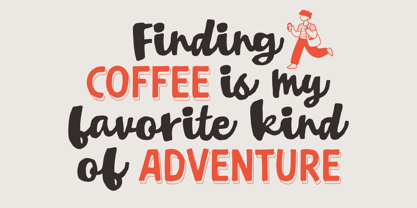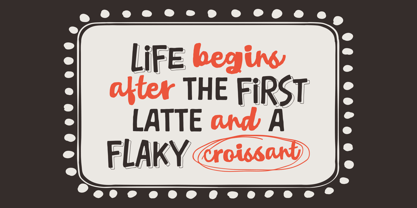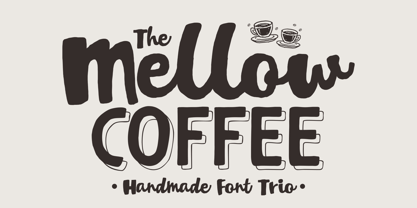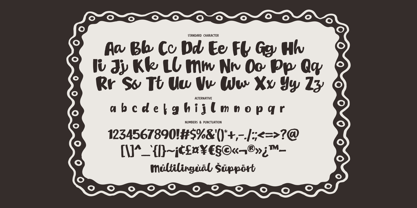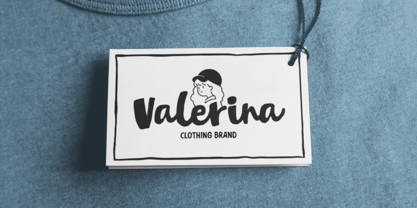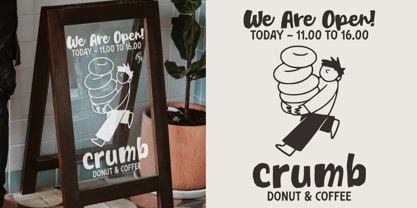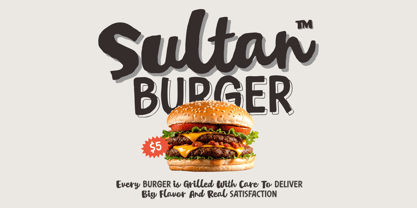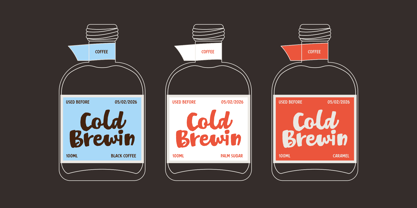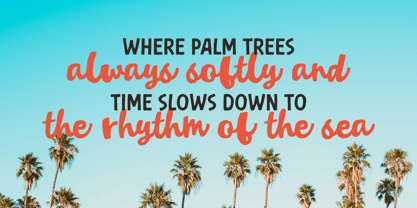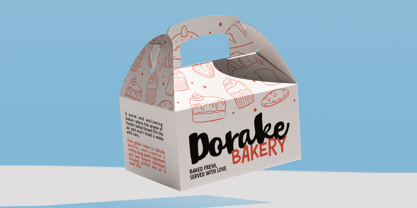
Mellow Coffee
Die Schriftfamilie Mellow Coffee wurde von Firman Maulana entworfen und von Agny Hasya Studio veröffentlicht. Mellow Coffee enthält 3 Stile und Familienpaketoptionen. Mehr über diese Familie
Bring a warm, handcrafted touch to your designs with Mellow Coffee, a charming font trio inspired by cozy cafés, fresh pastries, and slow mornings. This carefully crafted font set includes a smooth script, a bold sans serif, and a playful outline style. Designed to work seamlessly together, Mellow Coffee gives you the flexibility to create eye-catching typography for branding, packaging, signage, and social media. Whether you're designing for a coffee shop, bakery, or lifestyle brand, this font delivers a friendly and authentic feel that instantly connects with your audience. The imperfect handmade strokes add personality, while the clean structure keeps everything readable and versatile. Perfect for: • Café & bakery branding • Packaging design • Instagram content • Logo & signage • Quotes and lifestyle graphics Add Mellow Coffee to your font collection and start creating designs that feel warm, inviting, and full of character. Thank you for checking out this font. If you have any questions or need support, feel free to get in touch. Warm regards, agnyhasyastudio